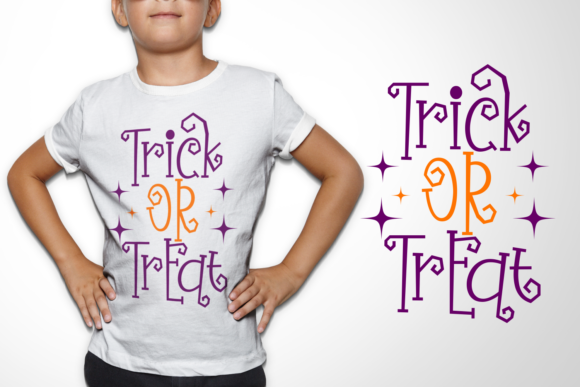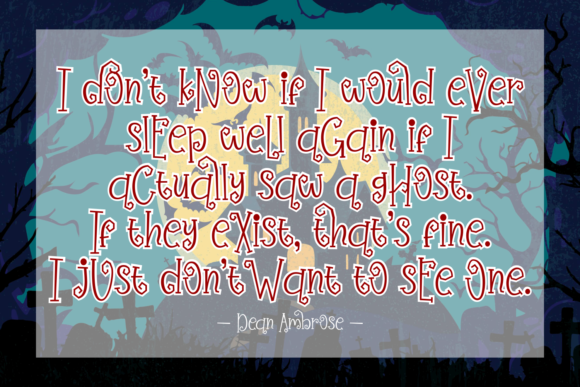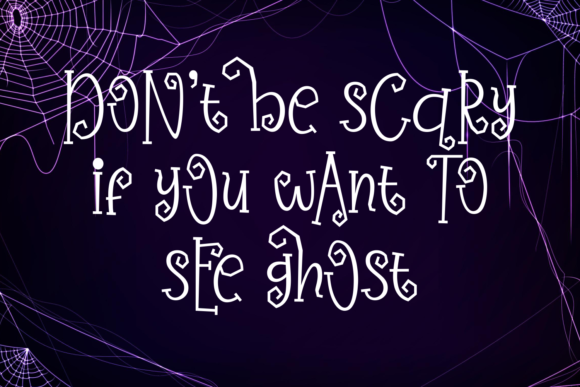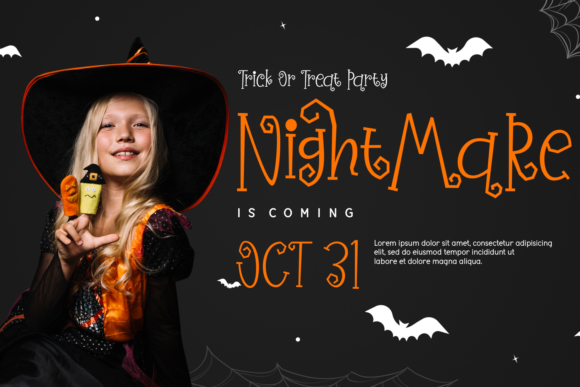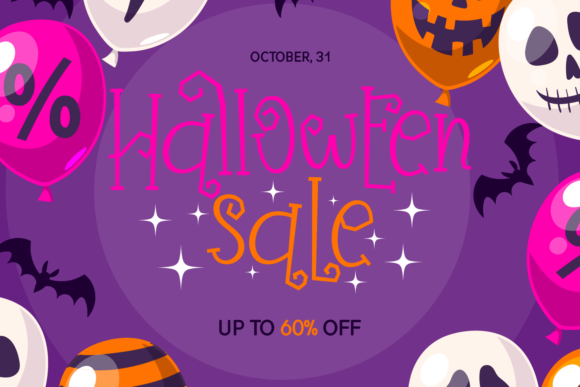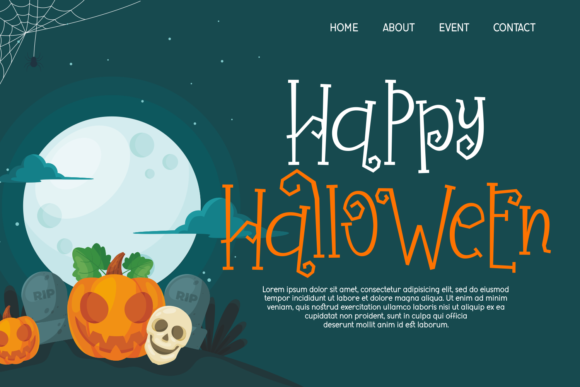
Introduction to Laura Witch Font
Laura Witch is a creepy serif font perfect for Halloween or other spooky designs.
It looks fantastic on Halloween-themed packaging, witchy designs, candy brands, party invitations, etc .
Key Features of Laura Witch Font